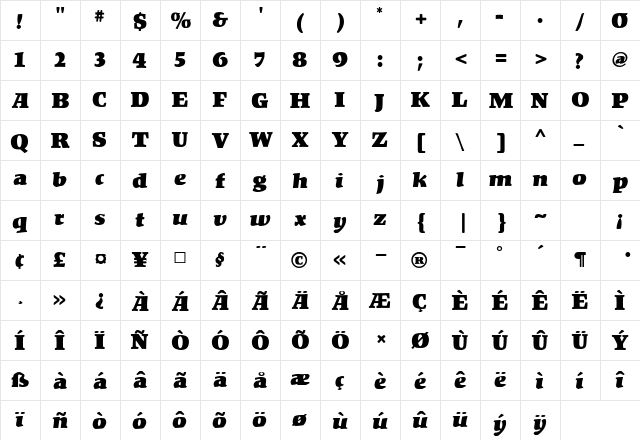
Kompakt Regular
Design Context for Kompakt Typeface
Kompakt is a composed and adaptable typeface that performs quietly and consistently across a wide range of design contexts.